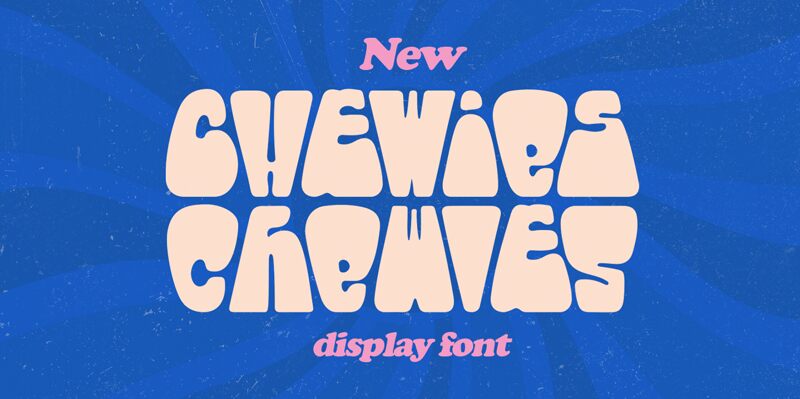
Chewies, designed by Letterhend Studio, is a groovy display font with an extra-bold weight. This retro-inspired typeface brings a playful and energetic vibe to any project it graces.
Perfect for album covers, posters, and social media graphics, Chewies adds a touch of fun and nostalgia to your designs. Its boldness commands attention, making it ideal for branding projects that need a strong and memorable presence. Whether you're working on a music festival poster or an eye-catching logo, Chewies is the font that will make your design stand out from the crowd.